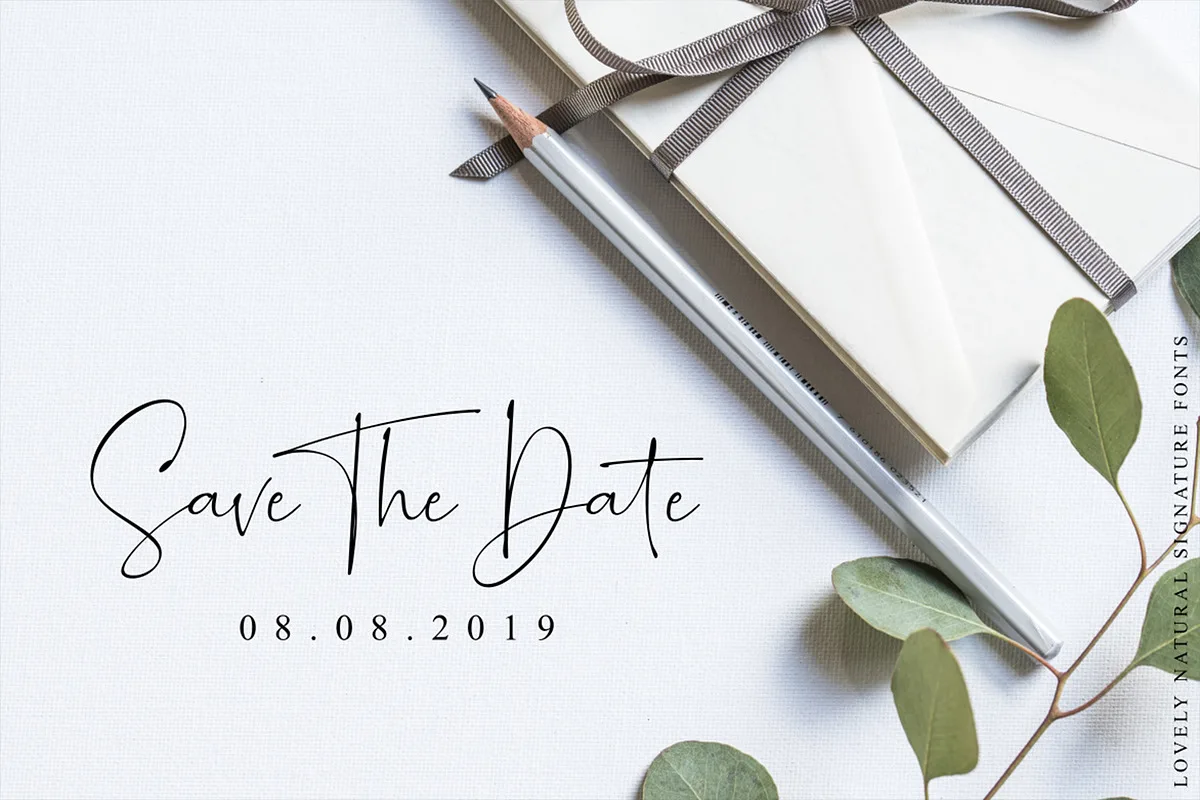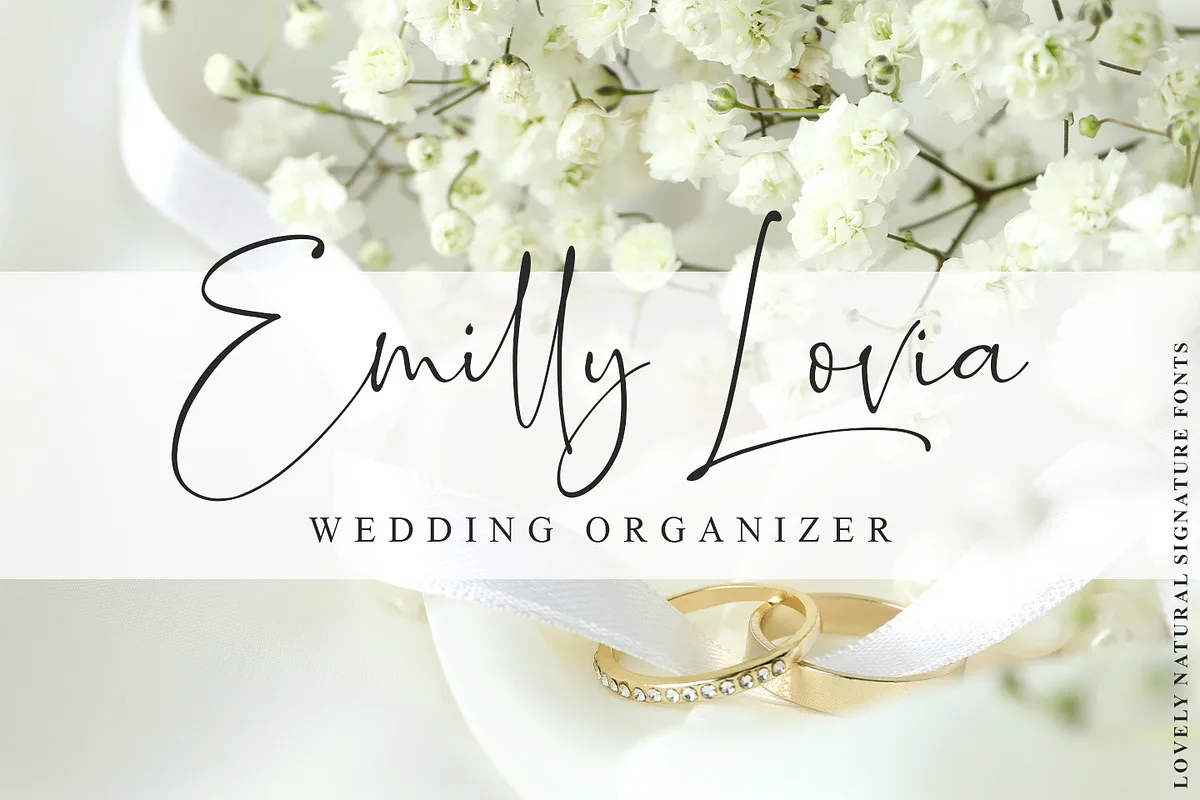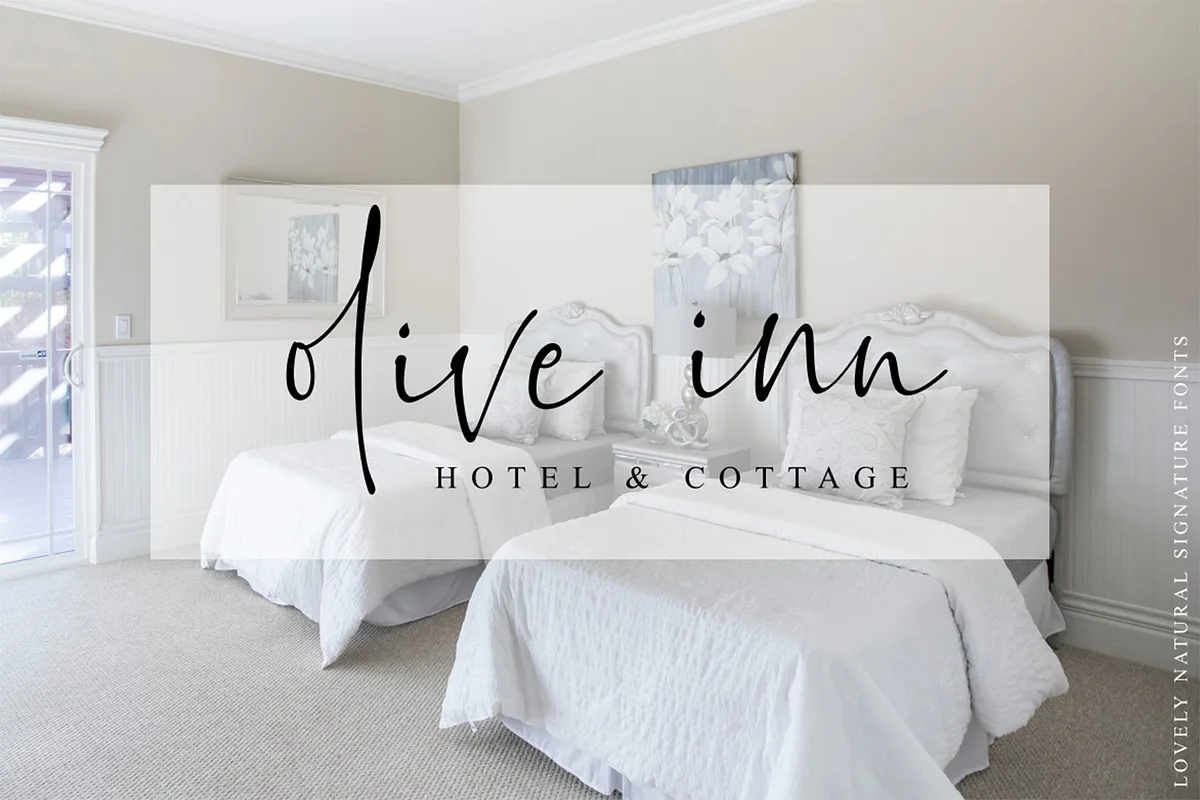
ROMANTICALLY – the lovely natural signature font. It is classy, it is natural, and it is beautiful signature fonts. Romantically is perfect for branding, photography, invitations, quotes, watermarks, advertisements, product designs, labels, and much more!
I created 417 ligatures to keep this font looking naturally. Swashes make it completed. You only need to add underscore 2x after lowercase from a to j (you can see in presentation pictures). Fonts include punctuation and multilingual support.